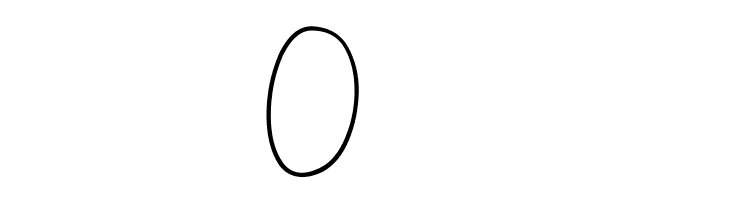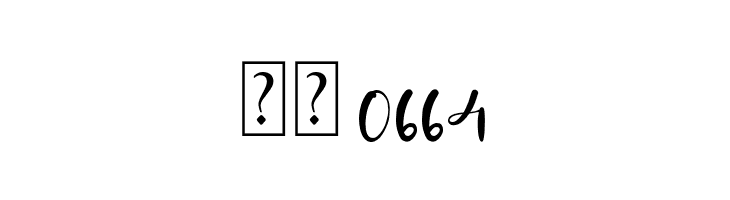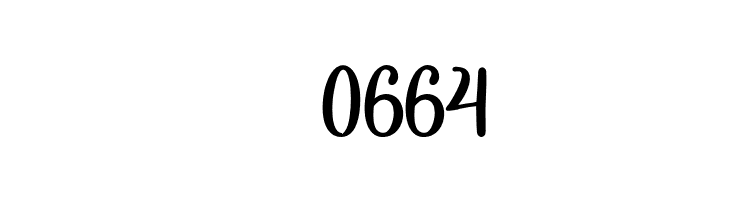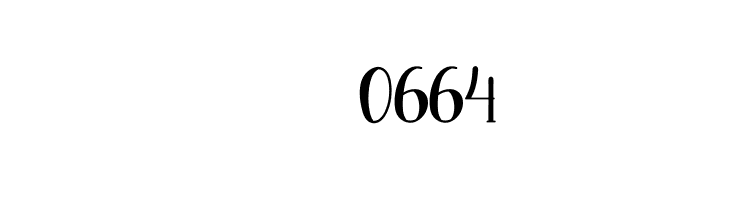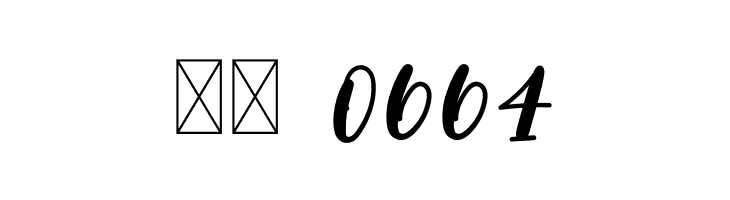
• Adelaide & Georgie Demo Version
A playful, handwritten-style font with a whimsical and casual appearance.
• AdelardDemo
A bold, textured, hand-drawn style font with a playful and artistic appearance.
• Adelarsio
A graceful script font with flowing, interconnected letters and elegant swashes.
• Adelfa_
A bold, expressive script font with a handwritten, artistic style.
• Adelfa_
A bold, expressive handwritten font with a playful and dynamic style.
• Adelfy_free-version
A playful and whimsical font with bold, curvy elements and a decorative style.
• ADELIA
A playful, bold font with a hand-drawn, casual appearance.
• Adelia
A flowing cursive font with elegant loops and swashes, offering a sophisticated and artistic style.
• adelia 1
A flowing, cursive script font with elegant, interconnected characters.
• Adelia FREE
A modern, cursive font with elegant, flowing lines and a handwritten style.
• Adelia Shawn
A playful, casual handwritten font with smooth, flowing curves.
• AdeliaFREE
A lively, cursive font with elegant loops and a handwritten style.
• Adeliapasha
A lively, expressive script font with flowing, interconnected letters.
• Adeliapasha
A playful and elegant cursive font with interconnected letters and expressive loops.
• Adelica Brush
A bold, brush-style font with a lively and energetic feel.